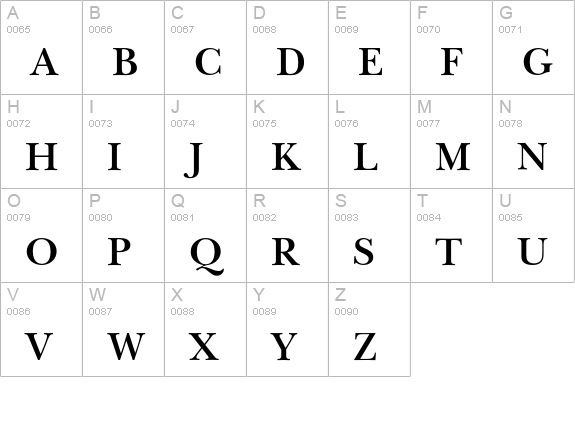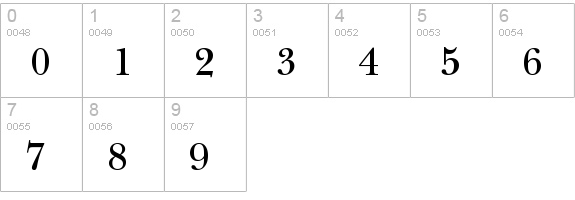
NewBaskervilleEF-SemiBold is a sub-bold, structured variant in the NewBaskervilleEF typeface family \xE2\x80\x94 well suited to sub-headlines and emphasised passages.
NewBaskervilleEF-SemiBold is a classic and elegant serif font that exudes sophistication and refinement. Its semi-bold weight adds a touch of modernity while still maintaining the timeless appeal of the Baskerville typeface. The strong and confident letterforms of NewBaskervilleEF-SemiBold make it perfect for headlines, titles, and branding materials. The font's clean lines and balanced proportions ensure readability and legibility across various design projects, from print materials to digital platforms. Whether used in editorial layouts, invitations, or website headers, NewBaskervilleEF-SemiBold commands attention and conveys a sense of authority and luxury. What's even better is that NewBaskervilleEF-SemiBold is available for free download at FontsMarket.com. This means you can easily access this premium-quality font without any cost, making it a valuable addition to your typography collection. Don't miss out on the opportunity to enhance your designs with the timeless beauty of NewBaskervilleEF-SemiBold – download it now and elevate your projects to new heights.